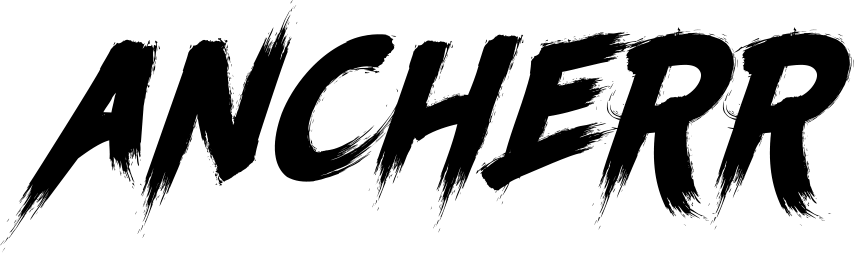
Ancherr Font
Have you been looking for a particular 80s brush font?! Something that is spine-tingling and will give your design a spooky feel with its creepy looks! Ancherr is an excellent choice as it has bold characters, that are eroded and distorted.
By selecting this Ancherr font you can make use of the letterforms that are included that are capitalized alphabets, numbers, and some punctuations. You should try this horror font for scary books, movies, posters, games, and Halloween packaging or clothing designs.